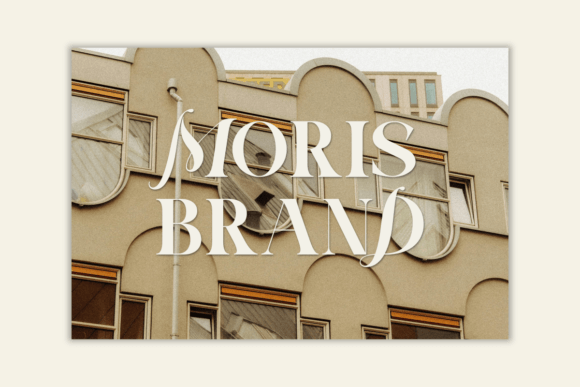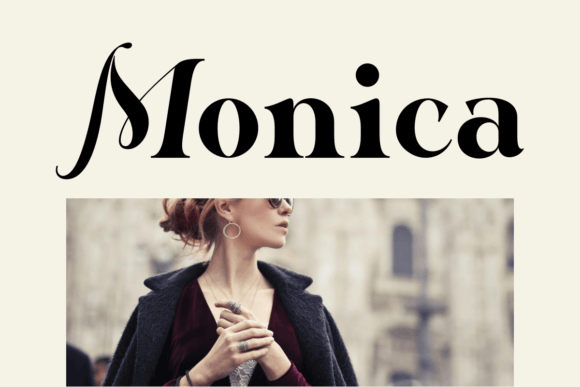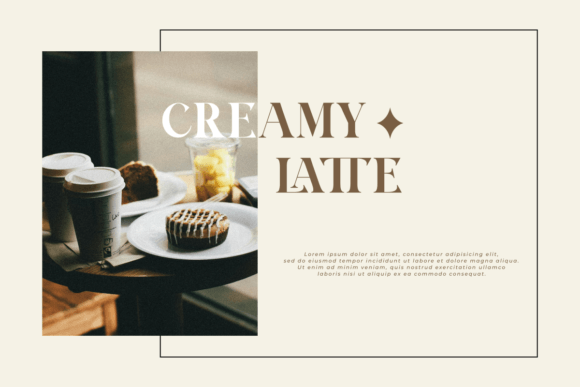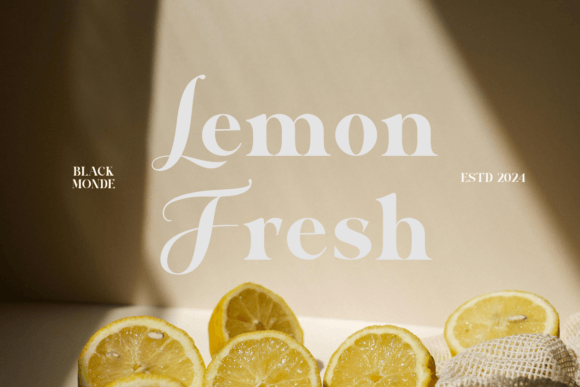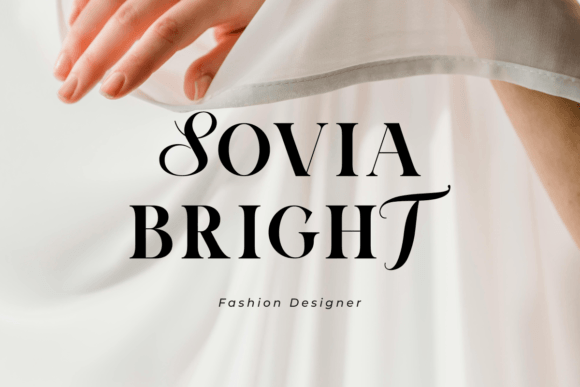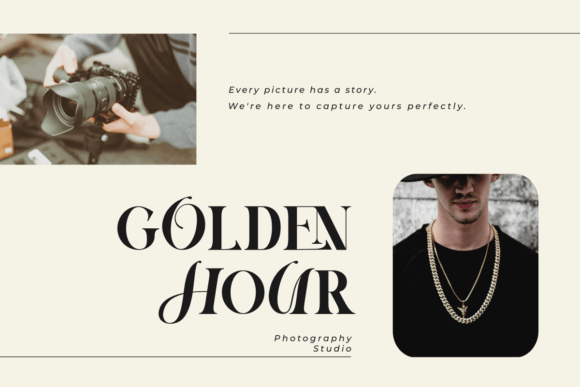
Discover the Elegance of Black Monde Font: A Perfect Blend of Grandeur and Grace
In the world of typography, a font can make all the difference in the success of a design project. For designers seeking to add a touch of luxury and sophistication to their work, Black Monde font is an exceptional choice. This remarkable serif font seamlessly combines grandeur and grace, making it an indispensable tool for creating stunning luxury branding, high-end editorial content, and premium packaging designs.
The Distinctive Characteristics of Black Monde Font
Black Monde font boasts distinctive and polished letter shapes that exude refinement and elegance. Its delicate serif detailing adds a timeless charm, while the robust weight and proportions of the characters lend a trendy edge. This unique blend of classic and modern elements makes Black Monde adaptable across a wide range of design domains, from traditional headlines and logos to modern digital platforms.
Unleashing the Power of Black Monde Font in Design
Black Monde font is specifically designed to make a statement. Its robust presence makes it perfect for headlines, logos, and any project that requires a potent visual impact. Whether you’re working on a luxury brand identity, a high-end editorial piece, or a premium packaging design, Black Monde font is sure to elevate your work to new heights.
The Perfect Fusion of Traditional and Modern Elements
One of the standout features of Black Monde font is its ability to seamlessly blend old-world charm with new-age aesthetics. This perfect fusion of traditional and ultramodern elements makes it an incredibly versatile font that can be used in a wide range of design contexts. Whether you’re looking to create a vintage-inspired design or a modern, cutting-edge visual identity, Black Monde font is up to the task.
Why Designers and Crafters Love Black Monde Font
So, what makes Black Monde font so popular among designers and crafters? Here are just a few reasons why this font has become a go-to choice for those seeking to add a touch of luxury and sophistication to their work:
- Elegance and refinement: Black Monde font exudes elegance and refinement, making it perfect for luxury branding, high-end editorial content, and premium packaging designs.
- Versatility: This font is incredibly versatile, and can be used in a wide range of design contexts, from traditional headlines and logos to modern digital platforms.
- Timeless charm: The delicate serif detailing of Black Monde font adds a timeless charm that never goes out of style.
- Potent visual impact: Black Monde font is specifically designed to make a statement, making it perfect for projects that require a potent visual impact.
How to Use Black Monde Font in Your Design Projects
Using Black Monde font in your design projects is easy. Here are a few tips to get you started:
- Pair it with a sans-serif font: Pairing Black Monde font with a sans-serif font can create a beautiful contrast that adds visual interest to your design.
- Use it for headlines and titles: Black Monde font is perfect for headlines and titles, where its robust presence can make a potent visual impact.
- Experiment with different colors: Black Monde font looks stunning in a range of colors, from classic black and white to bold and bright hues.
In conclusion, Black Monde font is an exceptional choice for designers and crafters seeking to add a touch of luxury and sophistication to their work. Its unique blend of grandeur and grace, combined with its versatility and timeless charm, make it an indispensable tool for creating stunning design projects. Whether you’re working on a luxury brand identity, a high-end editorial piece, or a premium packaging design, Black Monde font is sure to elevate your work to new heights.